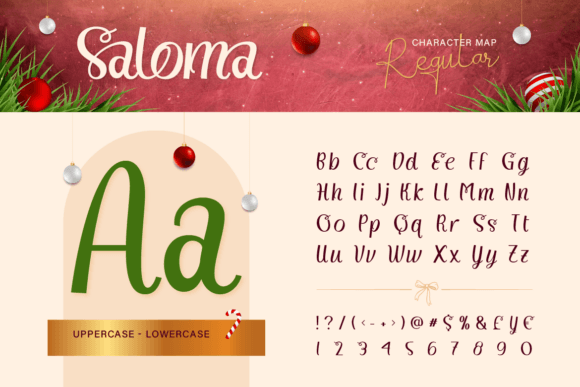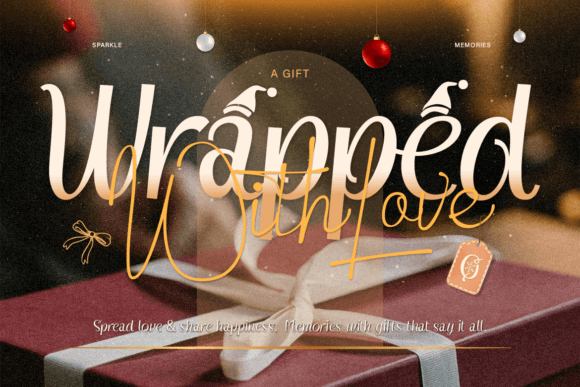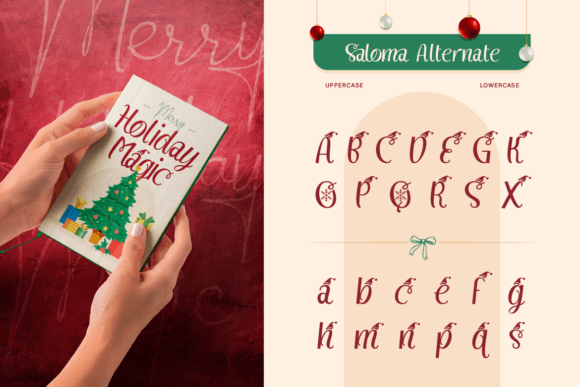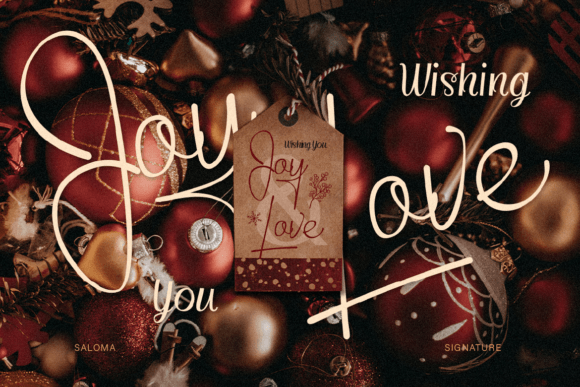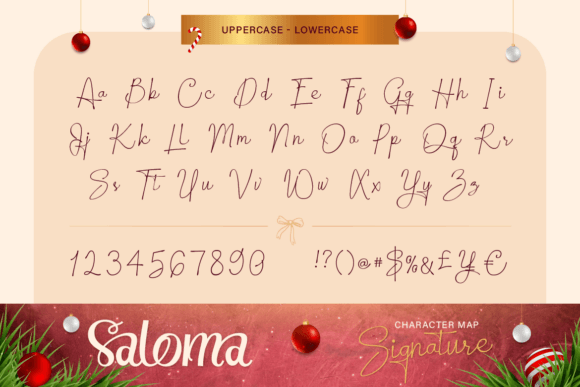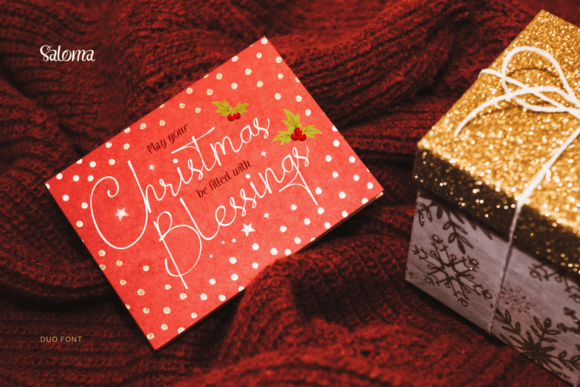
Introduction to Saloma Signature Font Font
Fonts play a crucial role in design, and the Saloma Signature Font font is a typeface that brings both character and versatility to any project. Whether you’re working on a branding project, a website, or a print design, the Saloma Signature Font font offers a unique style that can elevate your work.
Say hello to Saloma Signature, our duo script font combines elegant script with a playful touch, making it the perfect choice for this holiday season.
These flowing curves and delicate details create a beautiful and festive look Also, this duo font brings joy and warmth to your designs.
Key Features of Saloma Signature Font Font
Why Choose Saloma Signature Font Font?
The Saloma Signature Font font is more than just a typeface – it’s a design tool that helps you communicate your message with style and clarity. Its unique character set and versatile design make it suitable for a wide range of applications, from elegant invitations to bold headlines.
With its carefully crafted letterforms and balanced proportions, the Saloma Signature Font font ensures readability and visual appeal across all mediums.
What makes Saloma Signature Font font special?
The Saloma Signature Font font stands out with its unique design, exceptional readability, and versatility across various design applications.